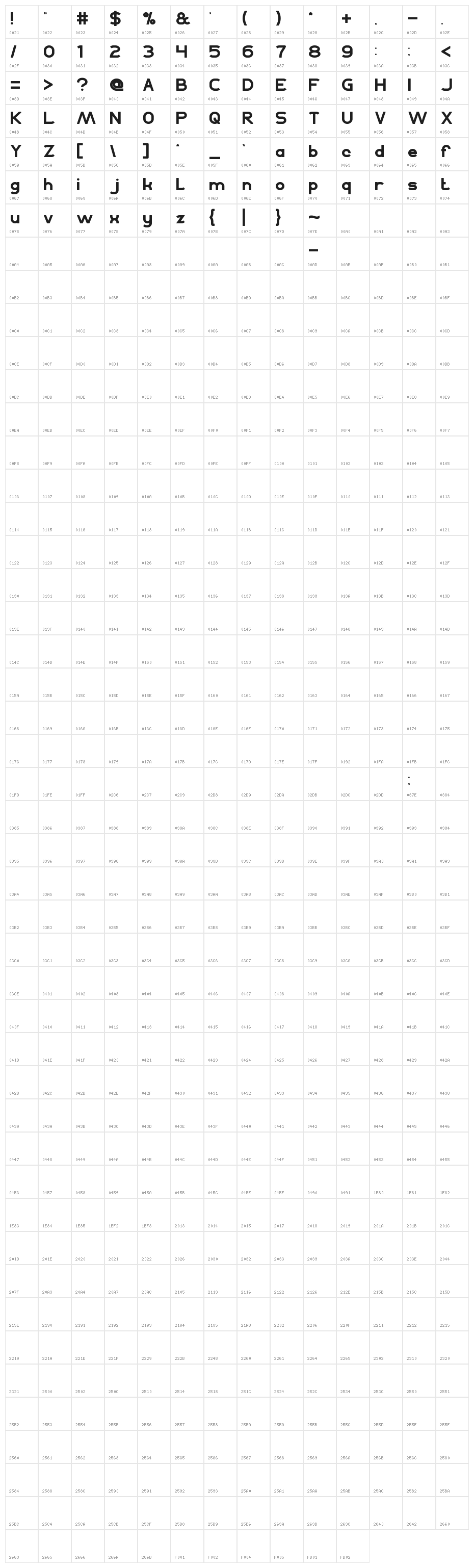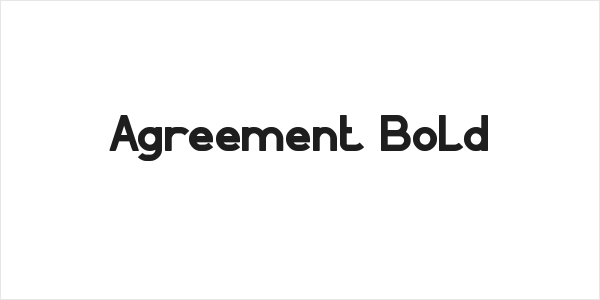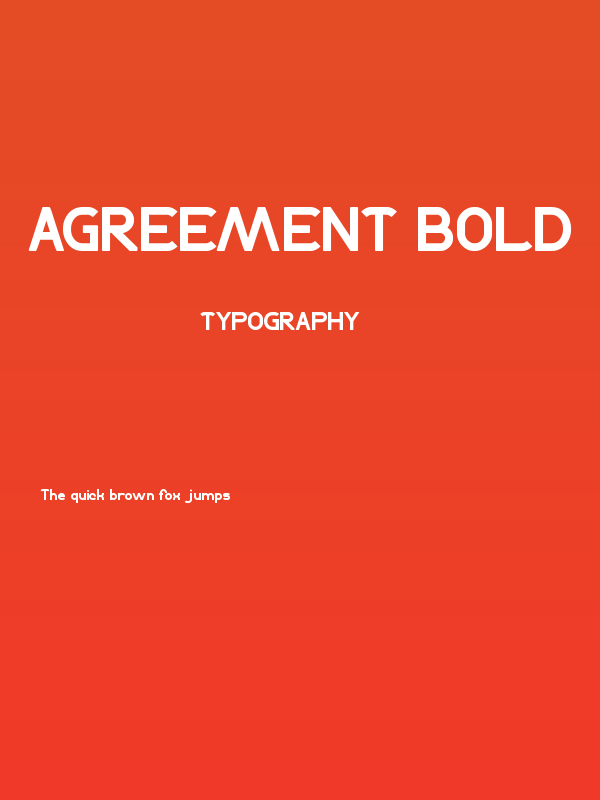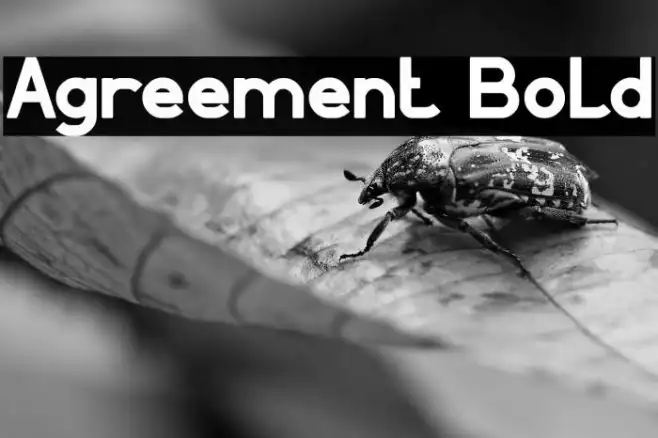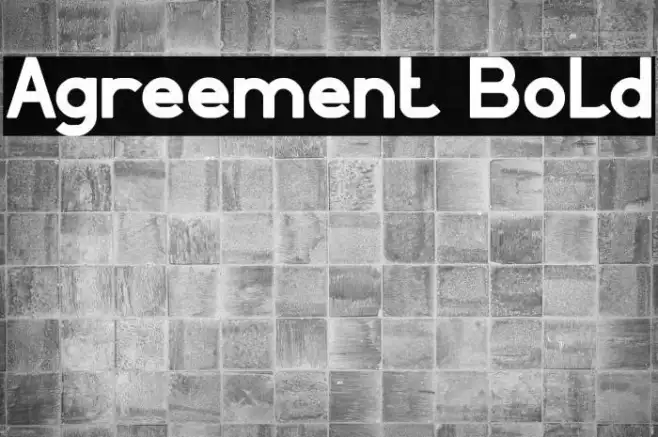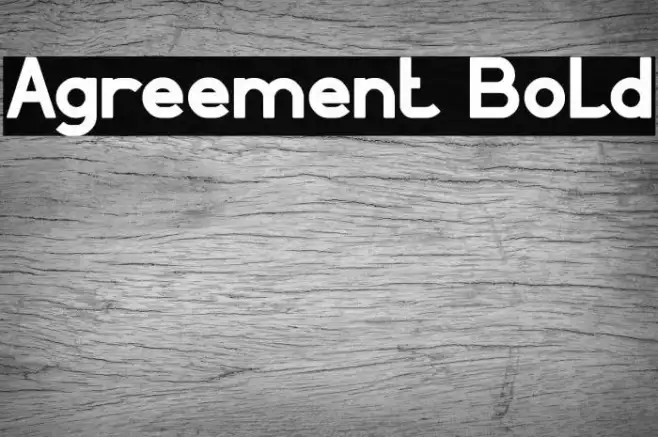
Agreement Bold Font
Agreement Bold Description
This font features a bold and modern design with a geometric structure. The uppercase letters are clean and straightforward, with a slight angularity that adds a contemporary edge. The lowercase letters maintain a consistent roundness, providing a harmonious balance between the characters. Numbers are clear and legible, making them suitable for various applications. The special characters are well-integrated, maintaining the overall aesthetic of the font. This typeface is versatile, offering a strong visual impact while remaining highly readable.